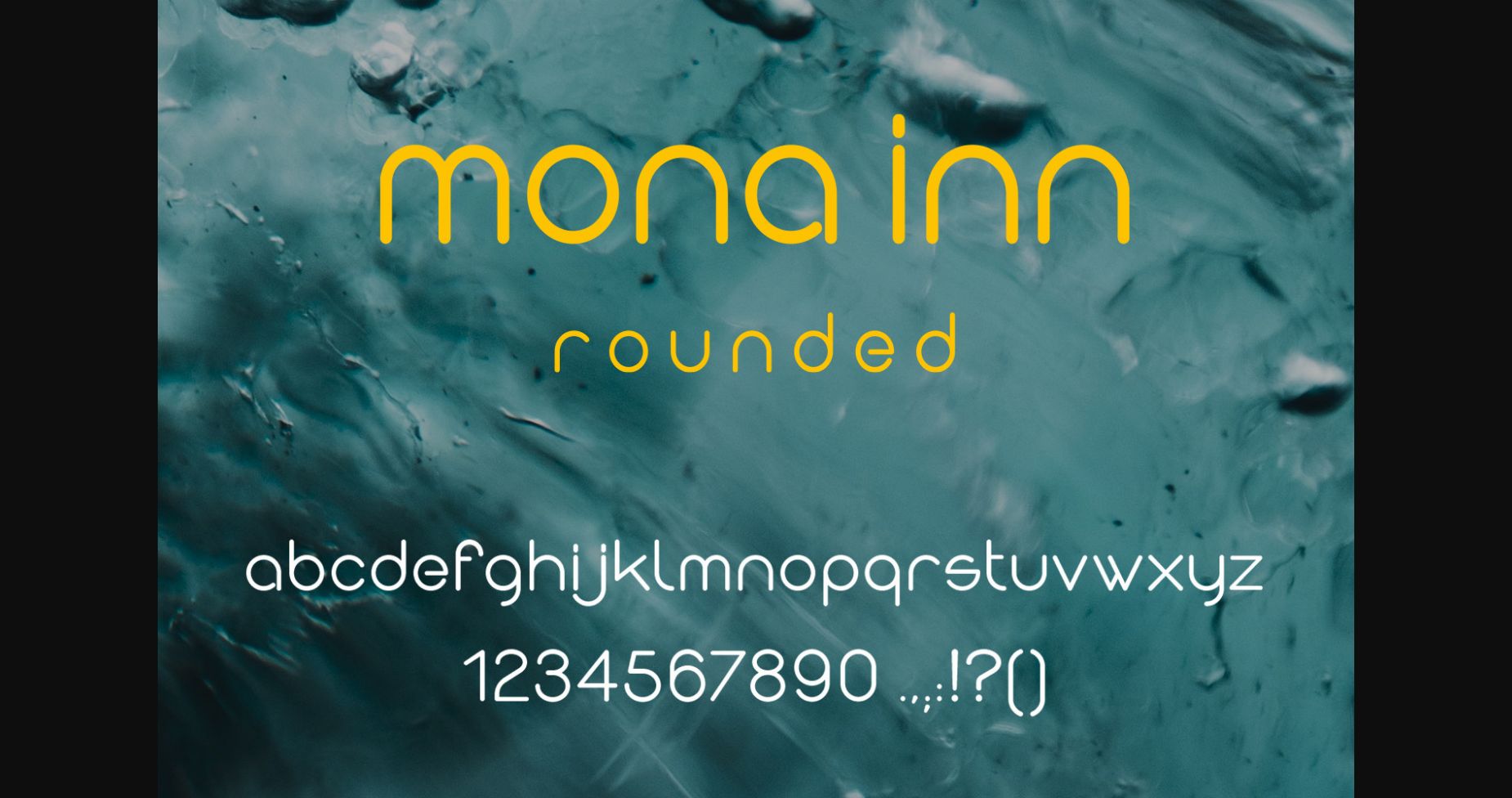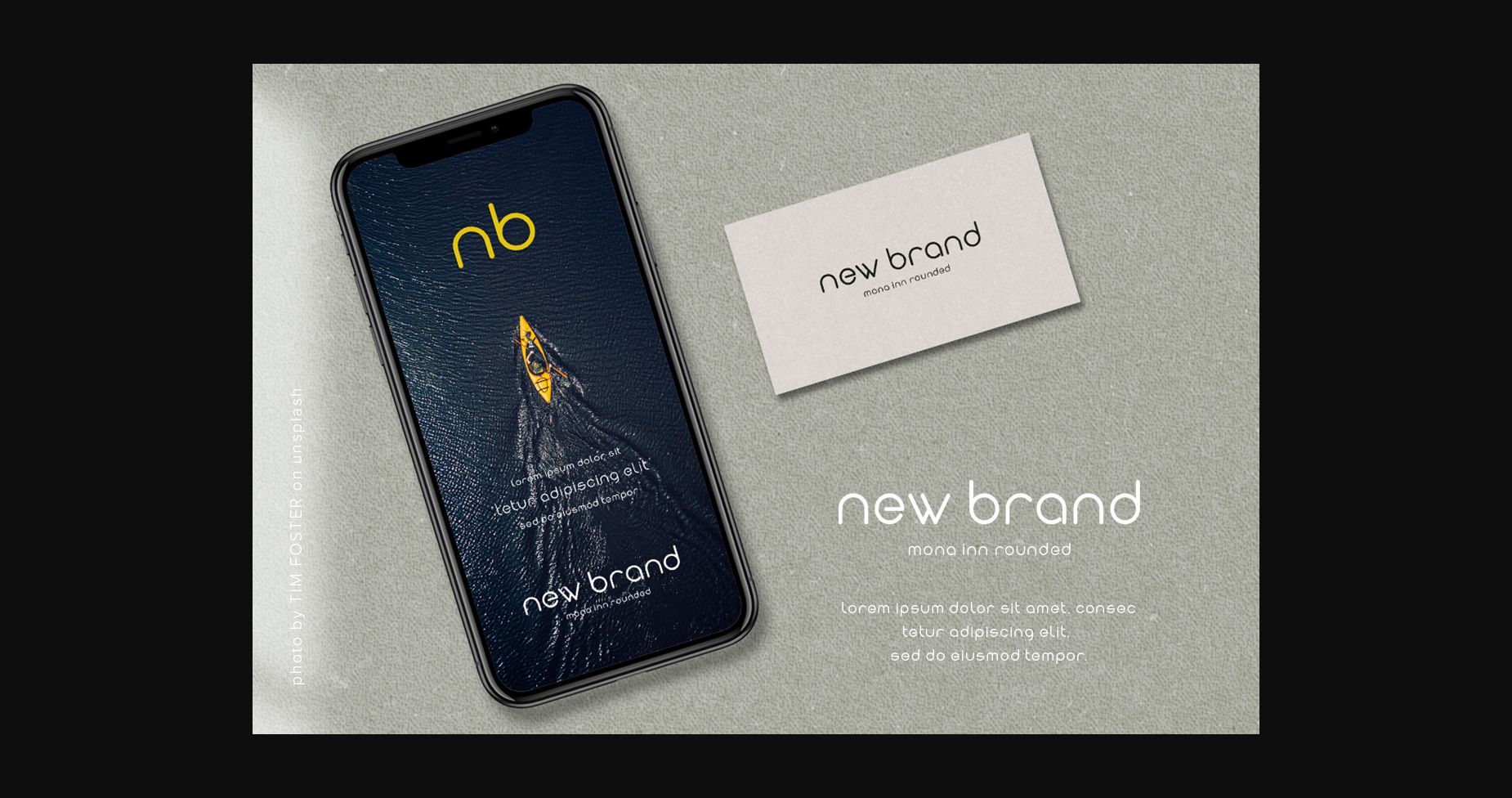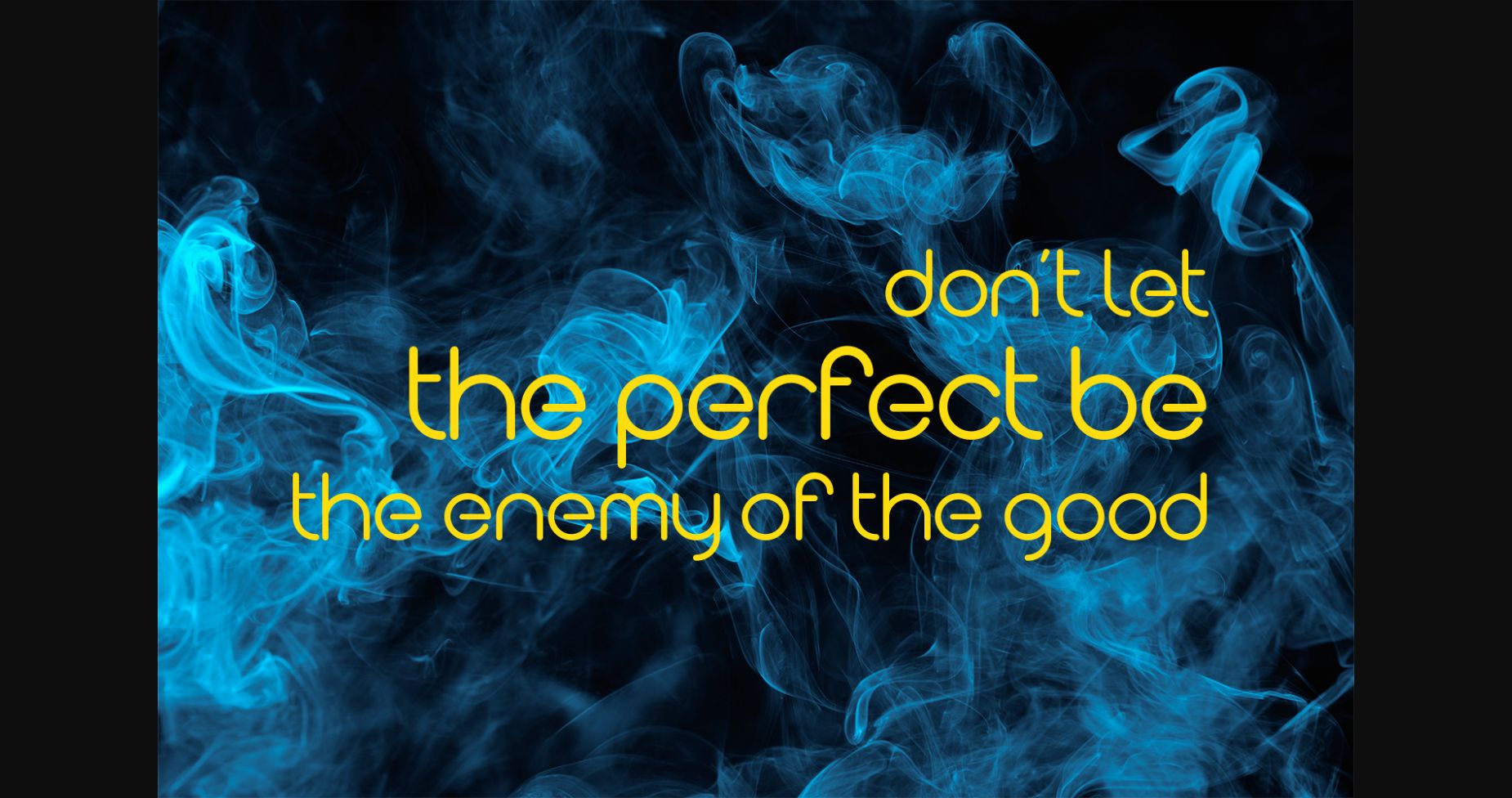
About Mona Inn Font
Mona Inn is a modern and minimal as well as rounded sans serif font.
It will add high value to your graphic and logo designs. Mona Inn is perfect for any branding project such as logos, t-shirt printing, creative products, and more.